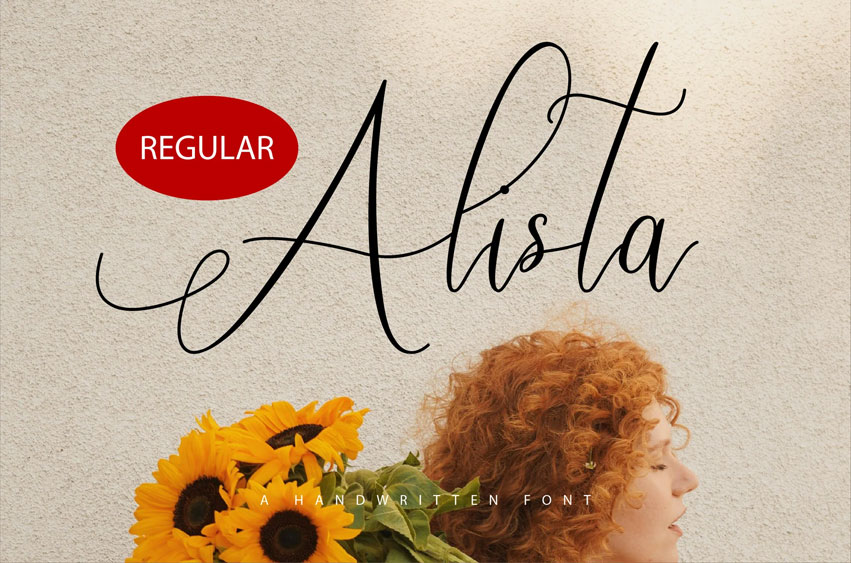
Alista Font
Alista Font is a stylish and sophisticated script font that blends timeless elegance with a modern flair. With its smooth, flowing lines and refined curves, Alista brings a sense of luxury and grace to any design.
The font’s unique character strokes make it perfect for high-end branding, invitations, and creative projects that require an air of class and refinement.